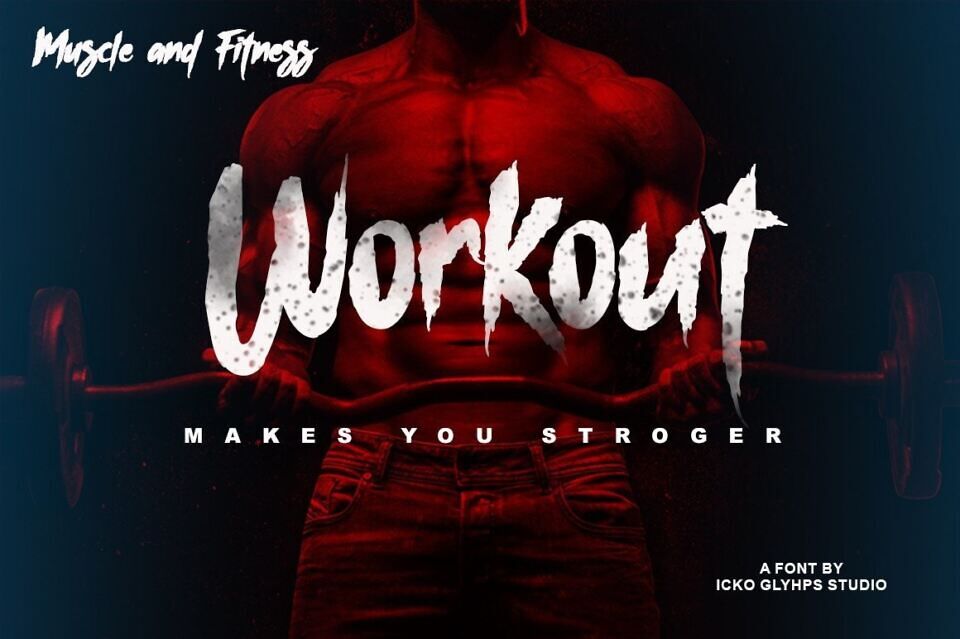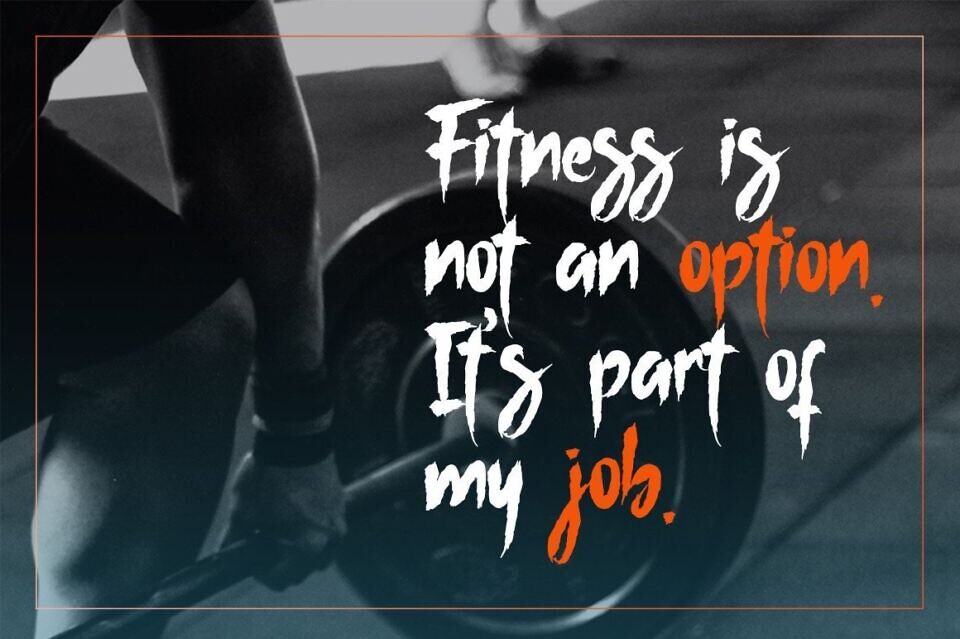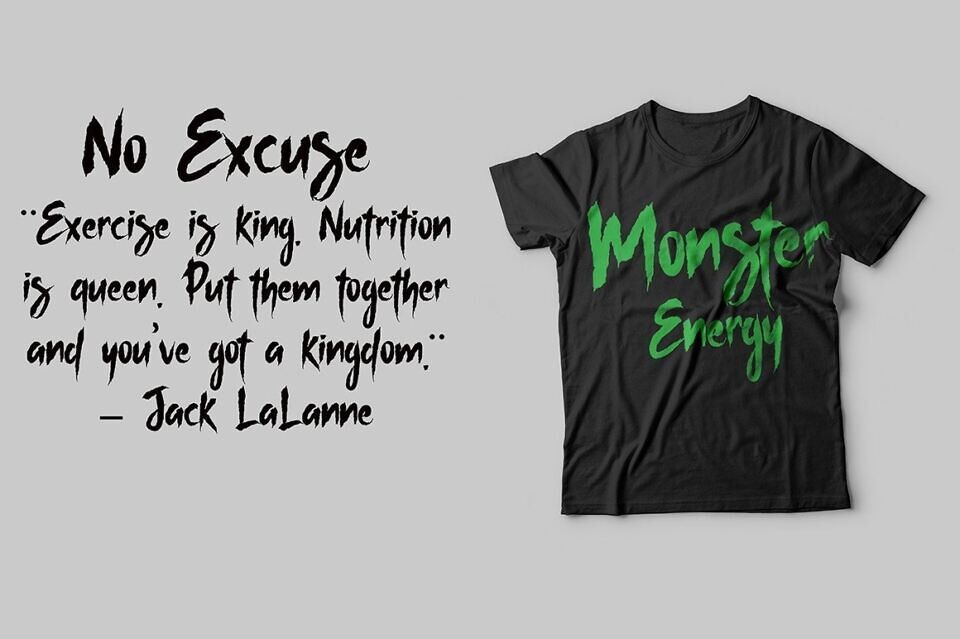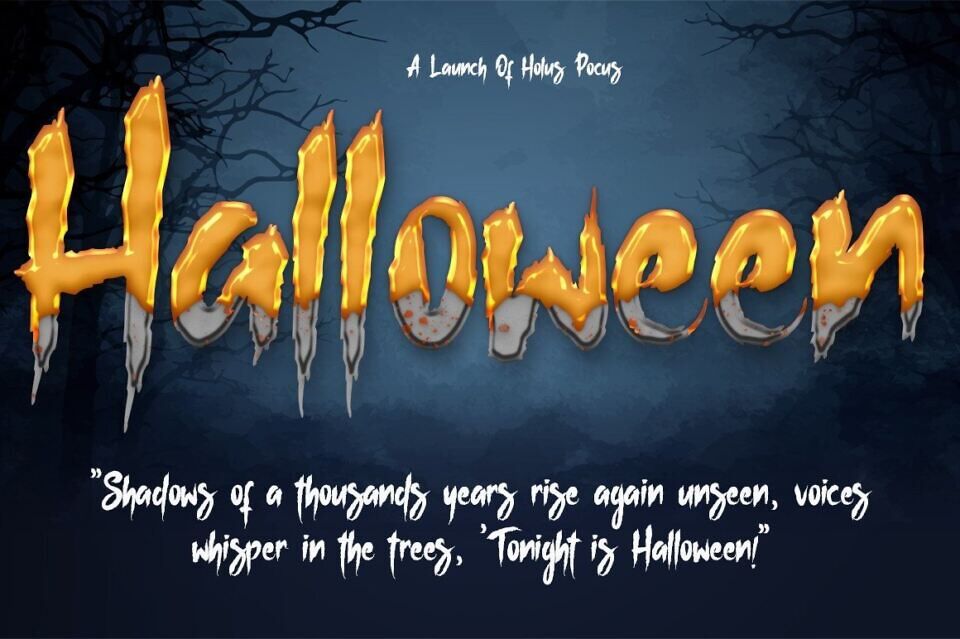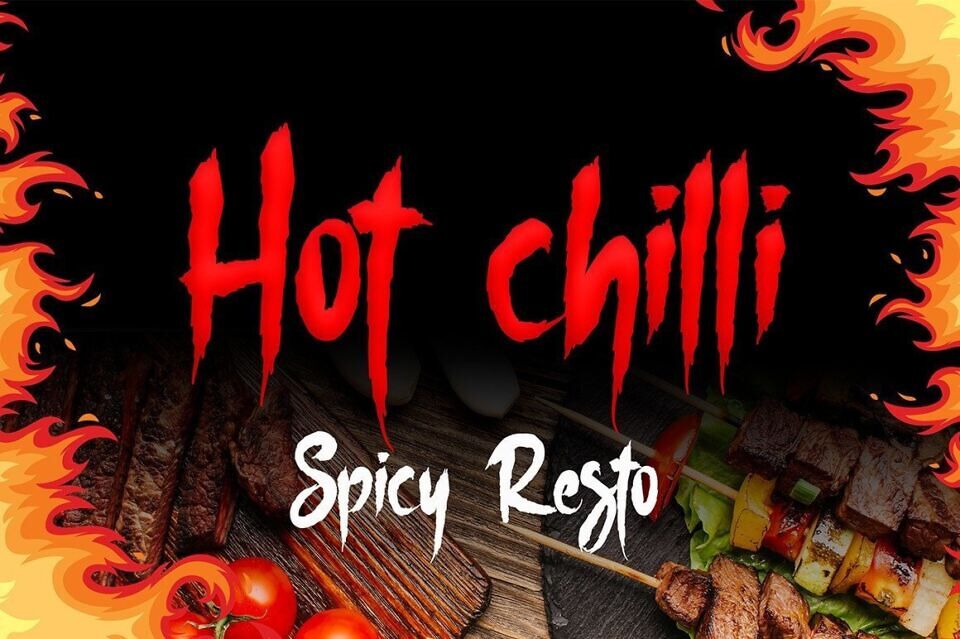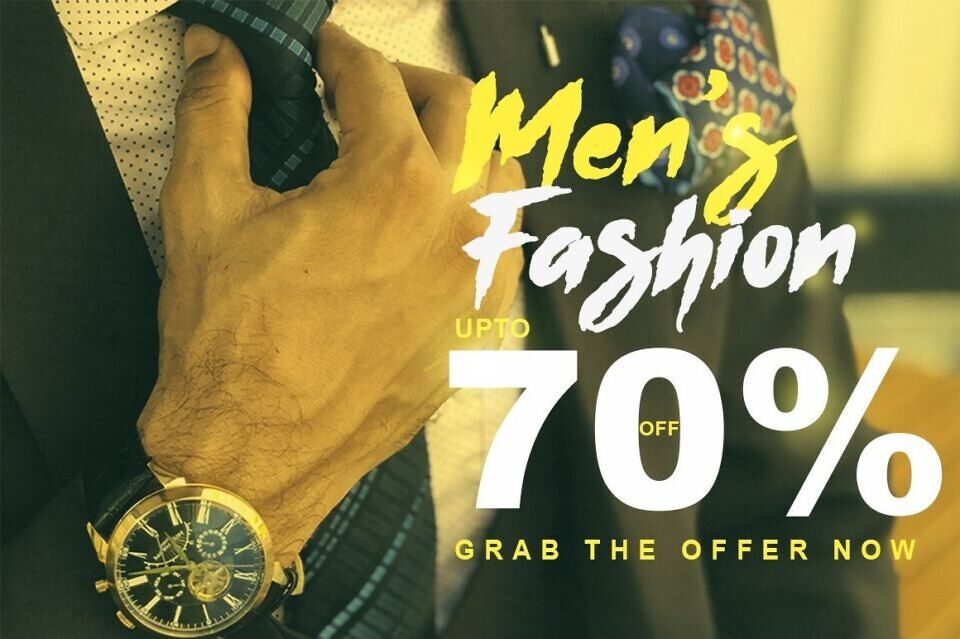
Workout Font
Workout is a freestyle font with a natural and rough brush texture. Its urban and youthful style makes it perfect for displays, titles, logos, packaging, T-shirts, hoodies, tote bag, posters, stickers, quotes, and any advertising which needs energetic typography.